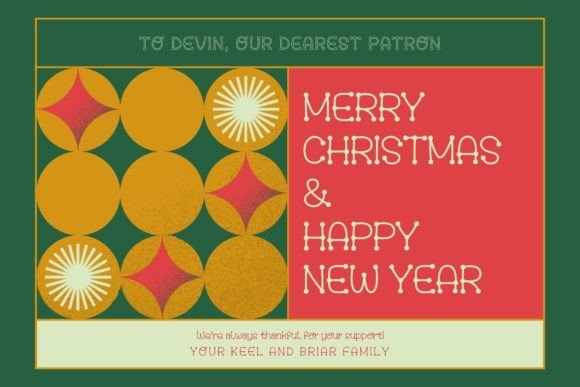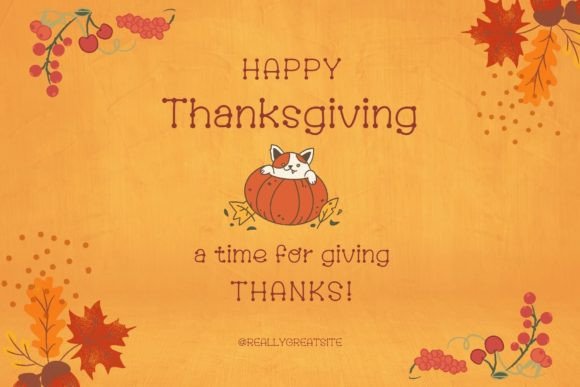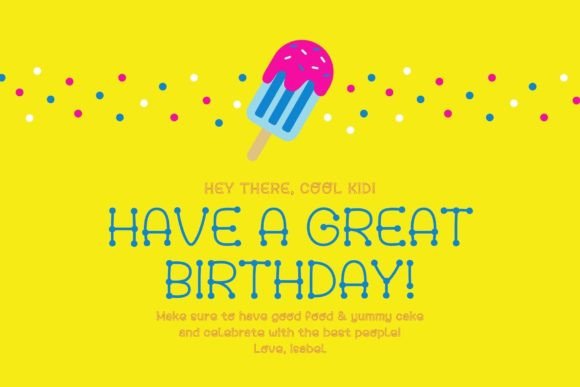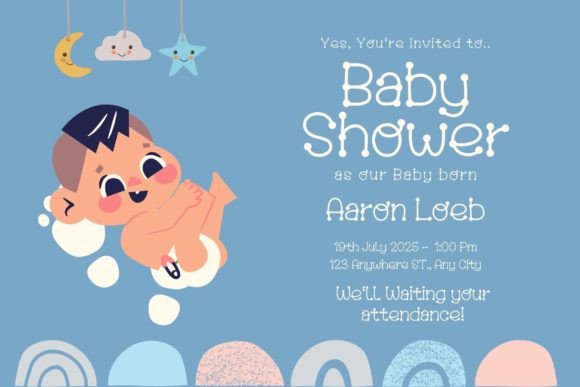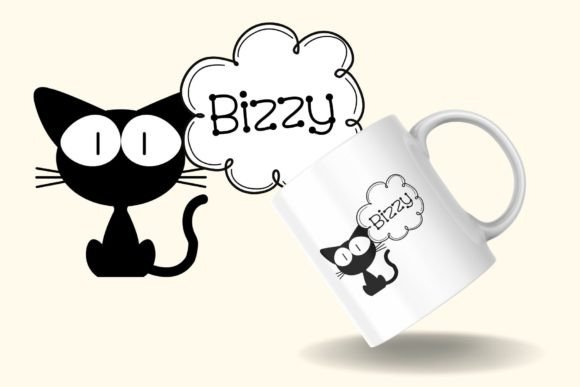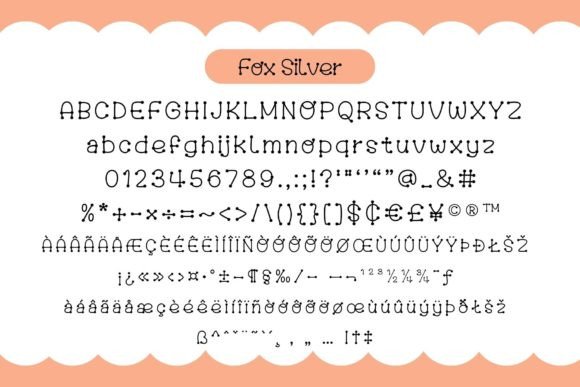
Adding a Touch of Whimsy to Your Creations
Have you ever stared at a blank canvas, searching for the perfect font to bring your creative vision to life? The right font can make all the difference, elevating your design from ordinary to extraordinary. For designers, finding that perfect font can be a game-changer.
Enter the Fox Silver Font, a cool, fun, and decorative font that’s sure to add a touch of whimsy to any creation. Whether you’re designing a kid-friendly project, a poster, or wall art, this font is an incredible asset to have in your library. Its cheerful vibe makes it perfect for a wide range of topics, from Halloween and festivals to Valentine’s Day and Mother’s Day.
Fox Silver Font Key Features
- Font Family: Fox Silver is a sans-serif font family.
- Character Count: The font family includes over 500 characters, including Latin, Cyrillic, and Greek scripts.
- Unique Characteristics: Fox Silver features a modern, sleek design with a subtle texture that gives it a premium feel.
Designer Review: Fox Silver Font
When I first laid eyes on Fox Silver Font, I was immediately drawn to its sleek and modern aesthetic ✨. The font’s clean lines and subtle texture give it a sophisticated look that’s perfect for luxury brands or high-end designs. The font’s weight range is also well-executed, with a smooth progression from light to bold.
Another strength of Fox Silver Font is its excellent legibility ✨. The font is clear and easy to read, even at small sizes, making it a great choice for body text or titles. The font’s x-height is also well-proportioned, which adds to its overall readability.
- ⚠️ Limited language support: Fox Silver Font is primarily designed for English and may not be suitable for languages that require more complex typography.
- ⚠️ Limited character set: The font may not include all the characters you need, especially if you’re working with languages that use non-Latin scripts.
Overall, Fox Silver Font is a solid choice for designers who need a modern, luxurious font. While it may have some limitations, its strengths make it a great addition to any design project. With some careful consideration of its limitations, Fox Silver Font can help take your designs to the next level.
Tip: Use Fox Silver Font to add a touch of elegance to your designs, especially for titles and headings.
Tip: Use Fox Silver Font to create stunning typography for your designs, especially for headings and titles.
Tip: Use Fox Silver Font to add a touch of sophistication to your presentations and documents.
Use Fox Silver Font for:
- Title and headings
- Business cards and letterheads
- Editorials and magazines
Remember to always pair Fox Silver Font with a clear and legible font for body text to ensure maximum readability.
Alternatives to Fox Silver Font
Open Sans is a clean and modern sans-serif font that is highly legible and versatile. It is suitable for body text, headings, and titles. Use Open Sans when you want a font that is easy to read and doesn’t compete with the content. It is more formal than Fox Silver Font and has a neutral tone.
Merriweather is a classic serif font with a traditional feel. It is suitable for body text, headings, and titles in formal or professional contexts. Use Merriweather when you want a font that conveys a sense of tradition and sophistication. It is more formal and elegant than Fox Silver Font.
Lato is a modern sans-serif font with a friendly and approachable tone. It is suitable for body text, headings, and titles in creative or informal contexts. Use Lato when you want a font that is modern and youthful. It is more casual and energetic than Fox Silver Font.
Q: What font sizes and weights are available in the Fox Silver Font family?
The Fox Silver Font family includes a range of weights, from Light to Black, with corresponding font sizes. The available weights include:
– Light (100)
– Regular (400)
– Medium (500)
– Bold (700)
– Black (900)
Each weight offers a distinct design variation, allowing you to create visually appealing typography for your project.